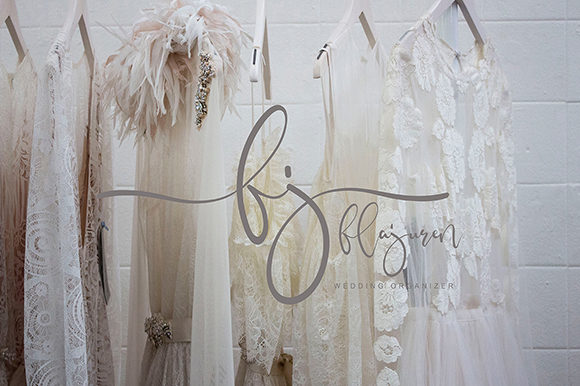
The Elmah Font: A Modern Handwritten Gem
Ah, the elusive perfect font. You know, that one that makes your design ideas shine like a diamond in the rough. I’ve been there, done that, and got the t-shirt (which, by the way, was probably designed with a font that wasn’t quite right). But today, I’m excited to share with you a modern handwritten font that’s stolen my heart: Elmah. With its light and lovely feel, Elmah has the power to turn any design idea into a standout masterpiece.
- ✨ Elegant, modern handwritten feel
- 💫 Beautifully crafted with attention to detail
- 🎨 Versatile and pairs well with a variety of design styles
While Elmah is an excellent font, it’s not without its quirks. For instance:
- 🤔 Some users may find the font a tad too light for certain design applications
- ⚠️ Limited availability of certain OpenType features (but more on that later)
Elmah was created by a talented font designer who drew inspiration from the world of handwriting and calligraphy. With a passion for elegant, modern design, the designer aimed to craft a font that would bring a touch of sophistication to any project. And, judging by the font’s popularity, I’d say they succeeded!
Q: What is the best way to use Elmah in my designs?
A: Elmah is a versatile font that can be used in a variety of design applications, from branding and advertising to packaging and digital media. Experiment with different font sizes, colors, and styles to find the perfect fit for your project.
Q: Is Elmah suitable for body text?
A: While Elmah is a beautiful font, it’s best suited for headlines, titles, and short paragraphs of text. For body text, you may want to consider a font with better readability and legibility at smaller sizes.